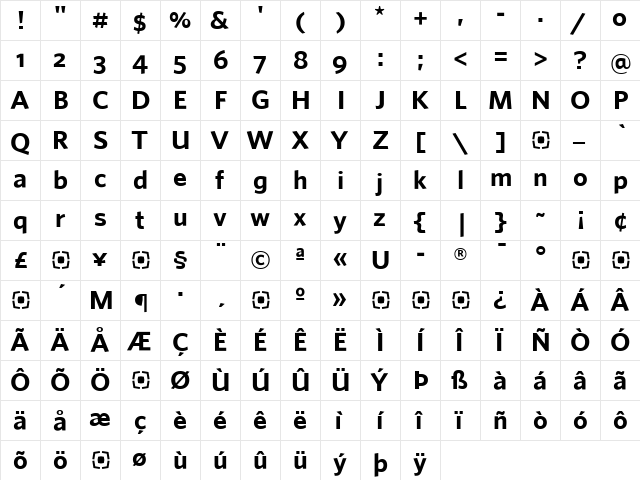
WhitneySans-BoldOSF Regular Font Preview
WhitneySans-BoldOSF Regular
WhitneySans-BoldOSF Regular Font Details
Design Context for WhitneySans-BoldOSF Typeface
WhitneySans-BoldOSF is a composed and adaptable typeface that performs quietly and consistently across a wide range of design contexts. The heavy weight commands attention and anchors typographic hierarchies.